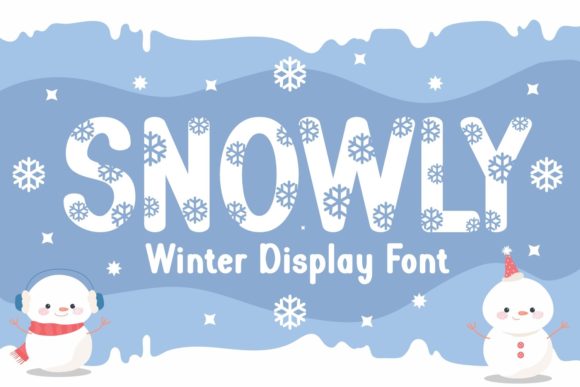
Prepare yourself to be enchanted by the magical allure of Snowly Font, a whimsical display font that will transform your designs into enchanting winter wonderlands. Each letter, crafted with a joyful spirit, dances upon the page like snowflakes swirling in a frosty breeze. Its playful charm will add a touch of delightful whimsy to any project, making it an ideal choice for winter-themed designs, festive greeting cards, and playful children's creations.
Embrace the transformative power of Snowly Font and watch as your designs blossom into enchanting masterpieces. Its spirited nature will ignite a sense of childlike wonder, inviting you to escape into a realm of imagination and creativity.